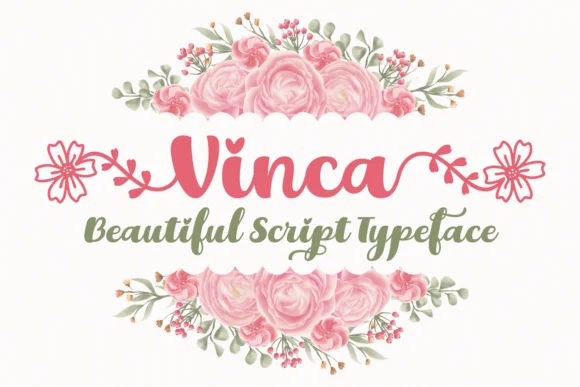
Vinca Font
Vinca Font is perfect for botanical branding, organic product packaging, natural skincare labels, garden center signage, eco-friendly campaigns, herbal tea packaging, wellness retreat materials, spa and aromatherapy branding, sustainable fashion labels, nature-inspired magazines, environmental organizations, and green lifestyle publications.
What makes Vinca Font exciting is its organic elegance that captures the delicate beauty of botanical illustrations through graceful letterforms inspired by natural growth patterns. This enchanting typeface embodies the harmony and vitality of plant life, combining gentle curves with refined structure that resonates with audiences seeking natural beauty and sustainable living. The font's flowing character and nature-inspired details create an immediate connection to the natural world while maintaining the sophistication required for premium organic and wellness brands. Its serene personality makes it perfect for projects that want to communicate purity, growth, and authentic connection to nature's healing properties.
The Vinca Font family includes light, regular, and medium weights, featuring botanical alternates, organic ligatures, and nature-inspired flourishes. The character set incorporates leaf-like elements, natural numerals, and eco-friendly symbols that enhance the font's botanical character and provide designers with comprehensive natural design solutions.
Whether you're creating organic brand identities, designing wellness marketing materials, or developing sustainable product communications, Vinca Font Free Download provides the natural elegance your eco-conscious projects require. This premium typeface excels in applications where authenticity and environmental consciousness are essential for connecting with health-conscious consumers and sustainability-focused audiences. The font's botanical qualities work magnificently across packaging, digital platforms, and print applications, making it an invaluable asset for designers serving natural and wellness markets. Organic brands and eco-friendly companies choose this font for its ability to communicate natural purity while maintaining commercial appeal and professional credibility. The comprehensive character set supports multiple languages while preserving its distinctive botanical aesthetic perfect for international natural product applications. Professional designers appreciate its versatility in creating cohesive green brand systems that honor environmental values and natural wellness principles. When you implement this exceptional typeface in your natural communications, you're selecting a typography solution that celebrates botanical beauty and sustainable living, ensuring your brand connects with audiences seeking authentic natural products and environmental responsibility in today's eco-conscious marketplace while maintaining the organic credibility essential for success in wellness and sustainability-focused industries.